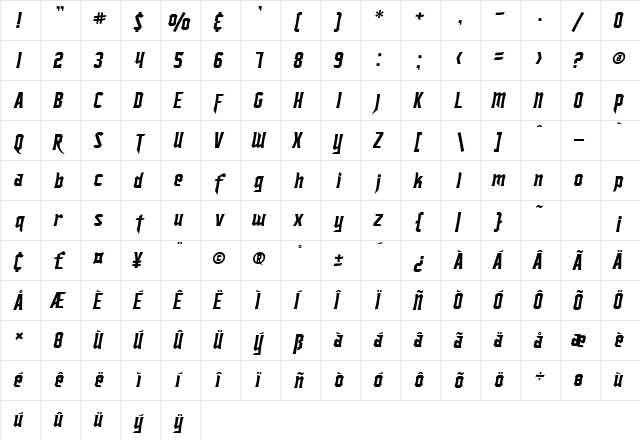
SF Ironsides Italic
Design Context for SF Ironsides Typeface
SF Ironsides is a composed and adaptable typeface that performs quietly and consistently across a wide range of design contexts. The dynamic lean of this cut emphasises speed and emphasis in any layout.
Pro Tip: Use SF Ironsides for emphasis, pull quotes, and subheadings where its slanted energy can add rhythm to the layout.